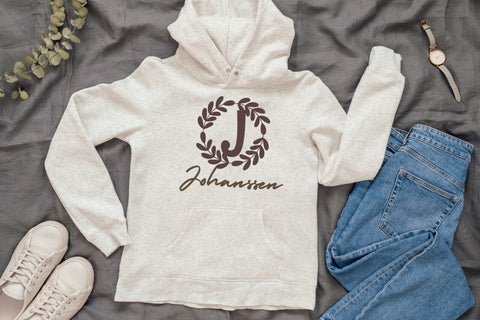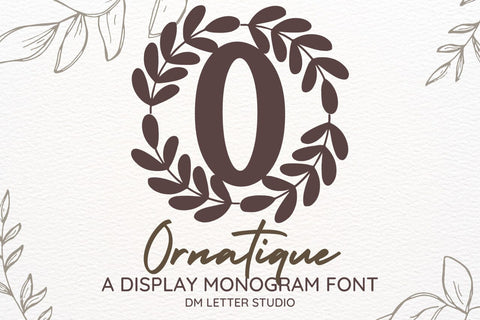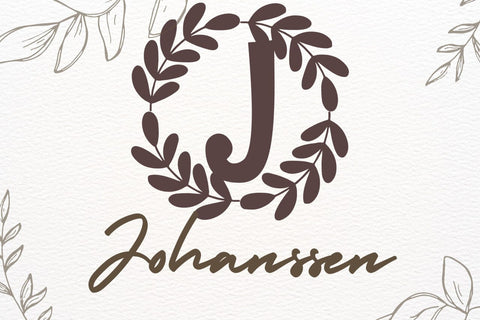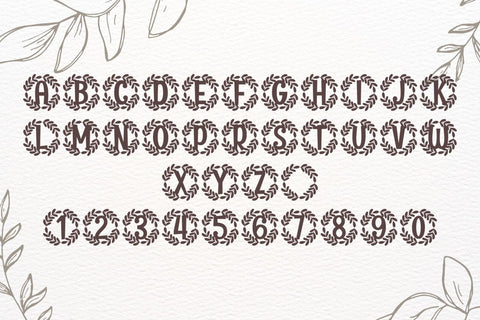
Ornatique Monogram Font
Meet Ornatique, the Monogram Font
Ornatique Monogram Font turns simple initials into refined emblems with quiet flair. Lines feel smooth and confident. Curves stay open, so tiny tags still read clearly. Use it for wedding suites, boutique logos, keepsake gifts, and premium packaging. Moreover, this Monogram Font pairs beautifully with soft serifs and modern sans, which keeps layouts elegant without extra effort.
Where the Monogram Font shines
Set single, double, or triple initials for logos and seals. Then surround them with laurel rings, oval borders, or fine rules to echo the graceful forms. Since the proportions favor symmetry, polished compositions come together in minutes. As a result, your thumbnails stand out and your listings stay consistent across platforms. Plus, Ornatique scales smoothly from jewelry cards to venue signage.
Design tips for Ornatique Monogram Font
Keep initials large and let white space breathe. Pair the headline monogram with a quiet serif or humanist sans for body text. Meanwhile, add micro shadows, thin inner strokes, or a delicate frame for depth. Because the structure feels airy, metallic accents and textured papers raise perceived value. However, keep the copy short so the Monogram Font remains the hero.
Select stylistic alternates for key letters
Curves tuned for foil, letterpress, engraving, and clean vinyl cutting
Why creators choose this Monogram Font
You need elegance that reads at a glance and still sells fast. Ornatique delivers. It catches the eye in thumbnails, speeds your layout process, and keeps your brand voice cohesive from invites to favors.